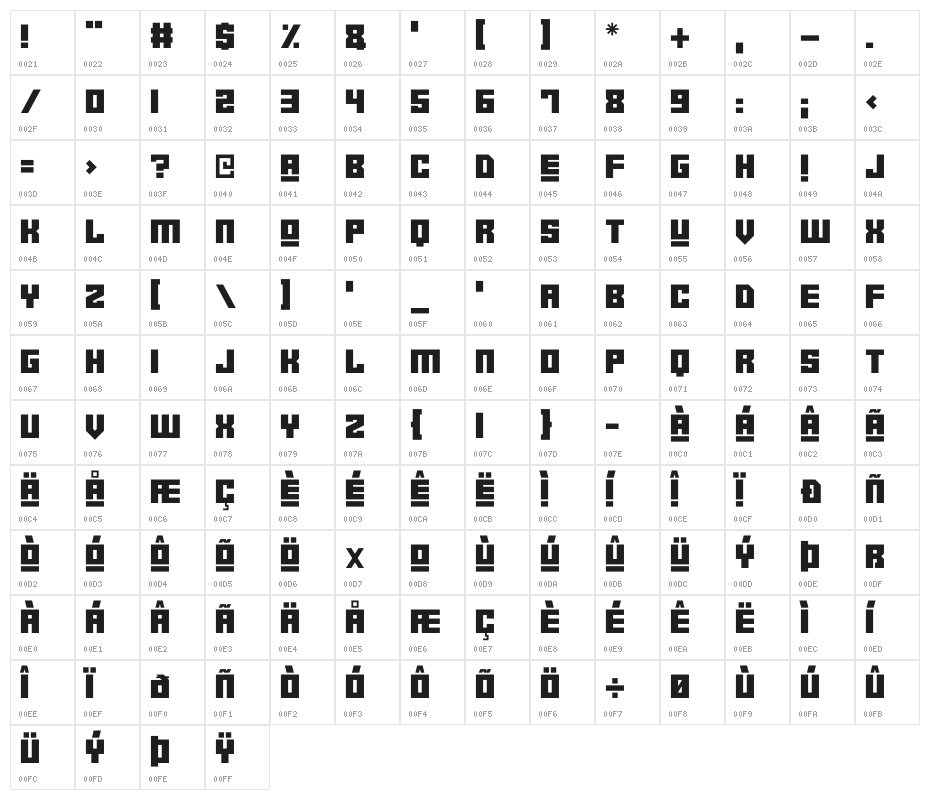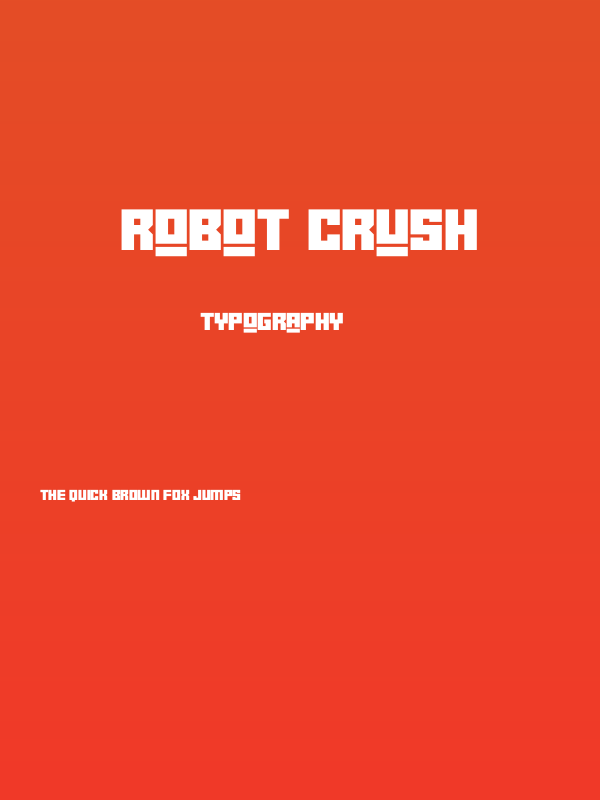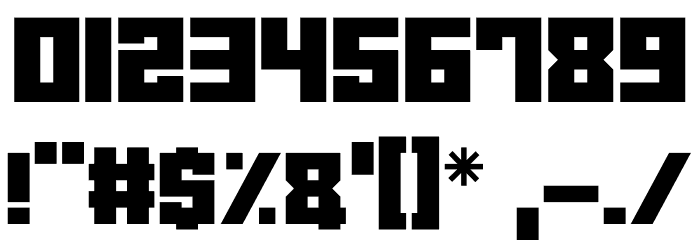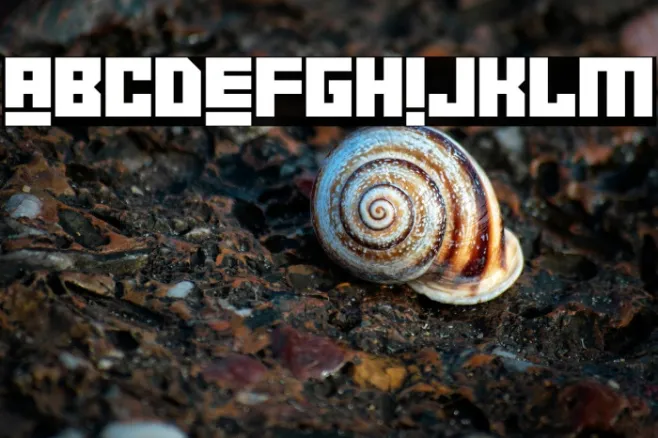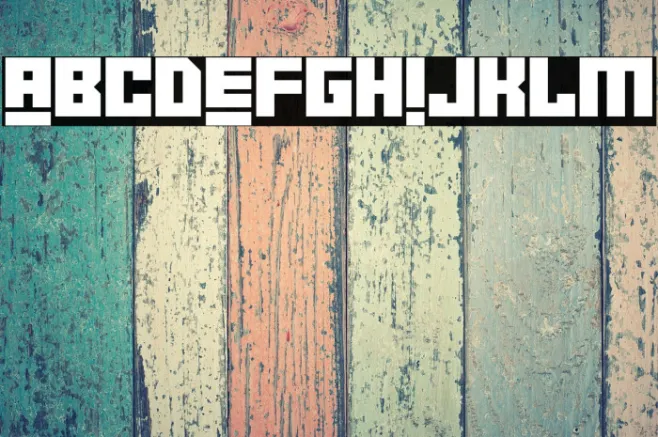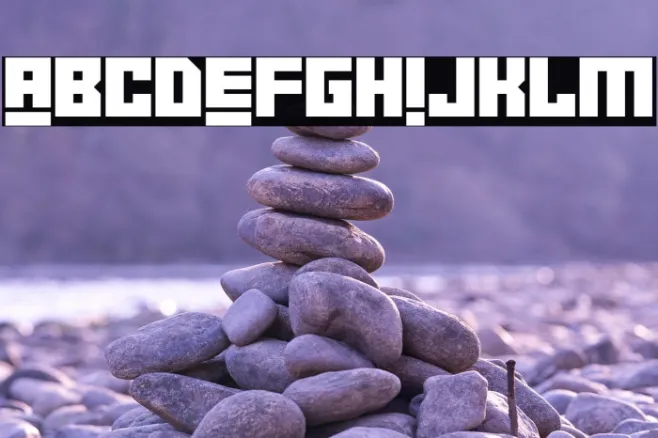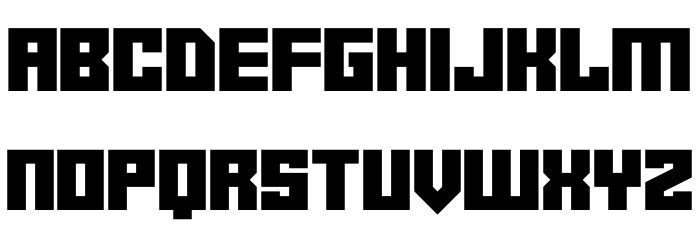
Robot Crush Font
Robot Crush Description
This font features a bold, geometric design with strong, angular lines and a futuristic aesthetic. The characters are uniformly wide, creating a blocky appearance that is both modern and industrial. The uppercase letters are particularly striking, with sharp edges and a consistent height that adds to the font's robust feel. The numerals and special characters maintain this bold style, ensuring a cohesive look across all glyphs. The font's distinct style makes it ideal for projects that require a strong visual impact.
| Proposed Projects | Ideal for technology branding, video game titles, sci-fi posters, and industrial-themed designs. |